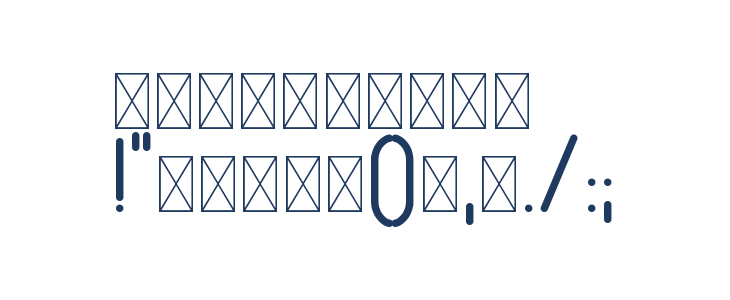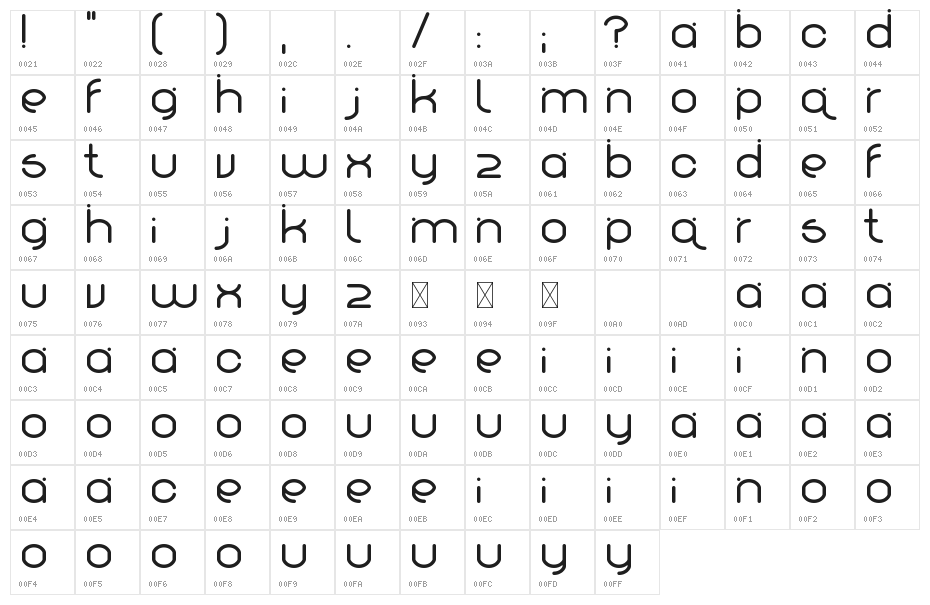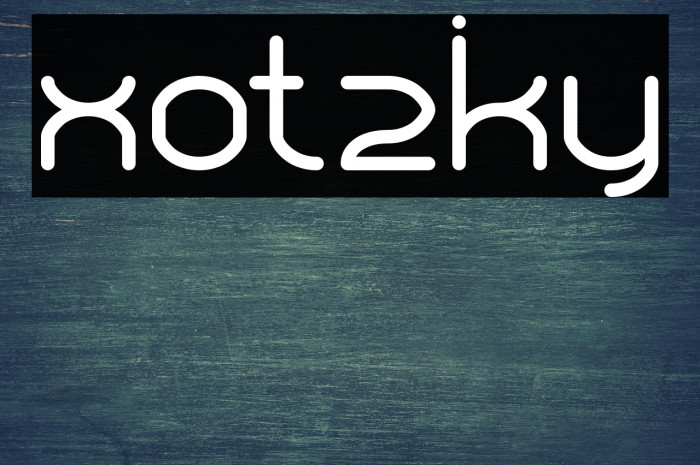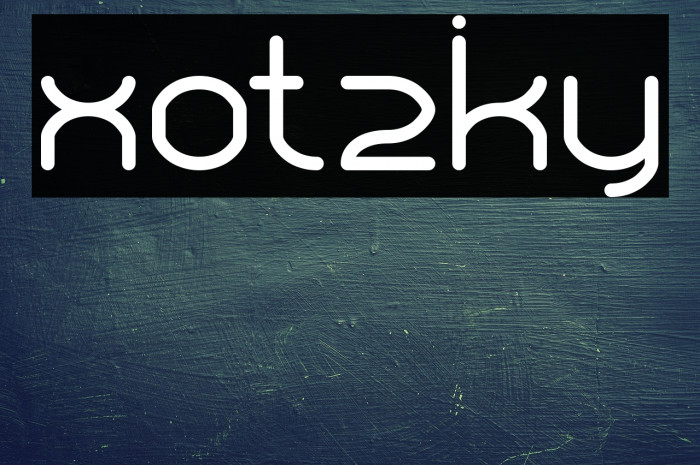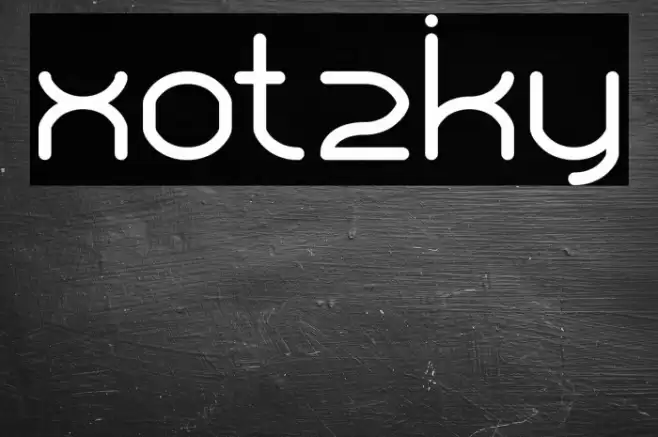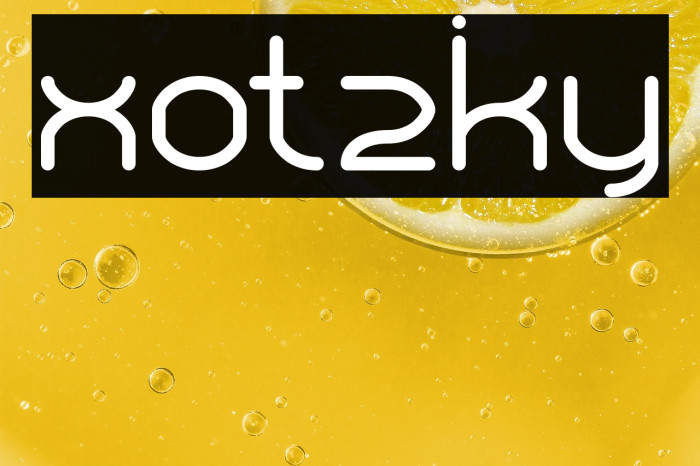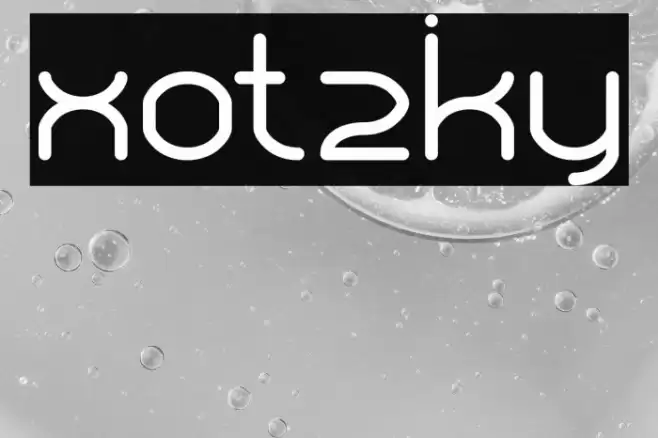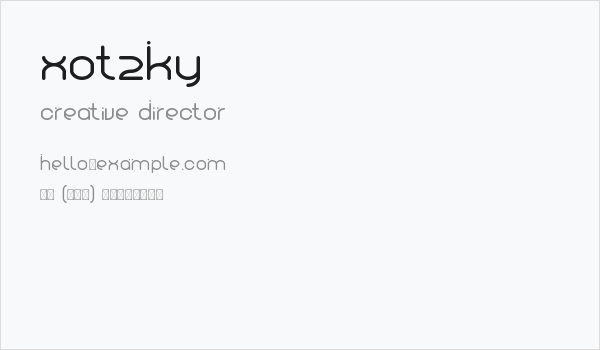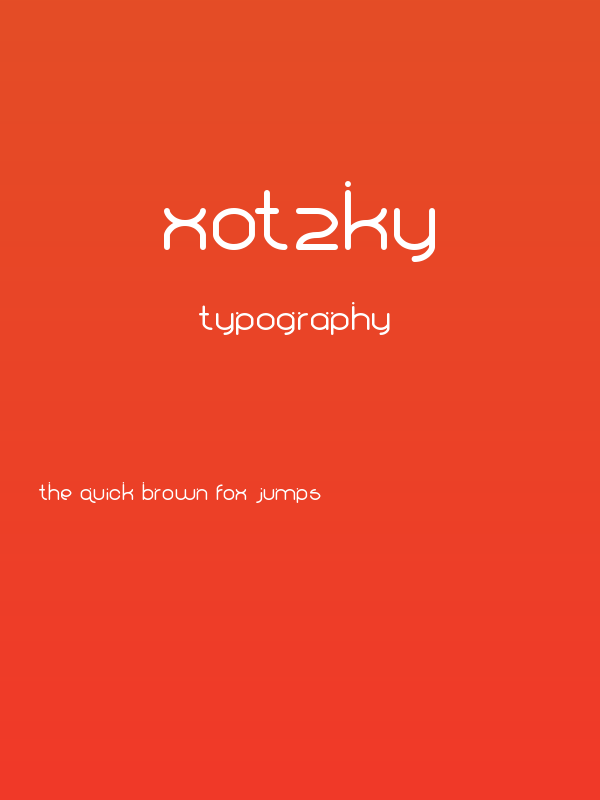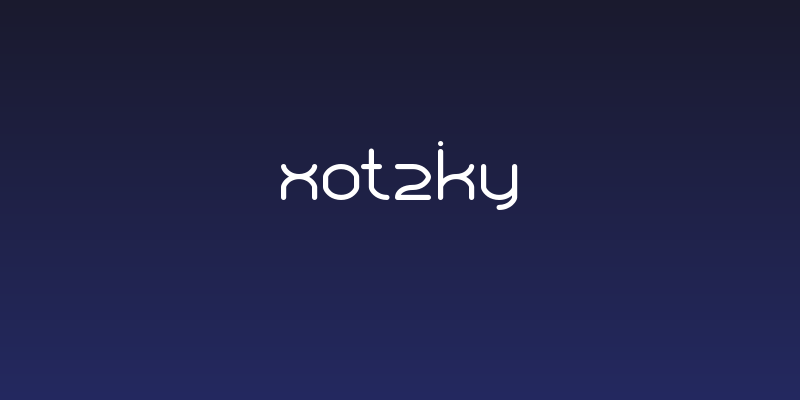
Xotzky Font
Xotzky Description
This font features a modern, rounded design with a clean and minimalistic aesthetic. Each character is crafted with uniform stroke thickness, giving it a cohesive and harmonious look. The rounded terminals and smooth curves provide a friendly and approachable feel, making it suitable for a variety of applications. The spacing between characters is consistent, ensuring readability and clarity. Its simplicity and elegance make it versatile for both digital and print media.
| Proposed Projects | Ideal for tech branding, app interfaces, modern advertising, and minimalist design projects. |